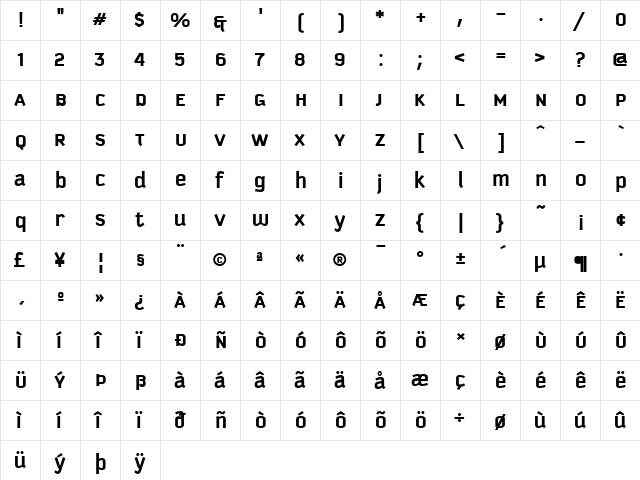
Kautiva Uni Bold
Design Context for Kautiva Uni Typeface
Kautiva Uni takes a measured approach to typography — its balanced proportions and neutral character make it a reliable workhorse for both digital and print work. Its bold stroke weight gives it real presence on the page.